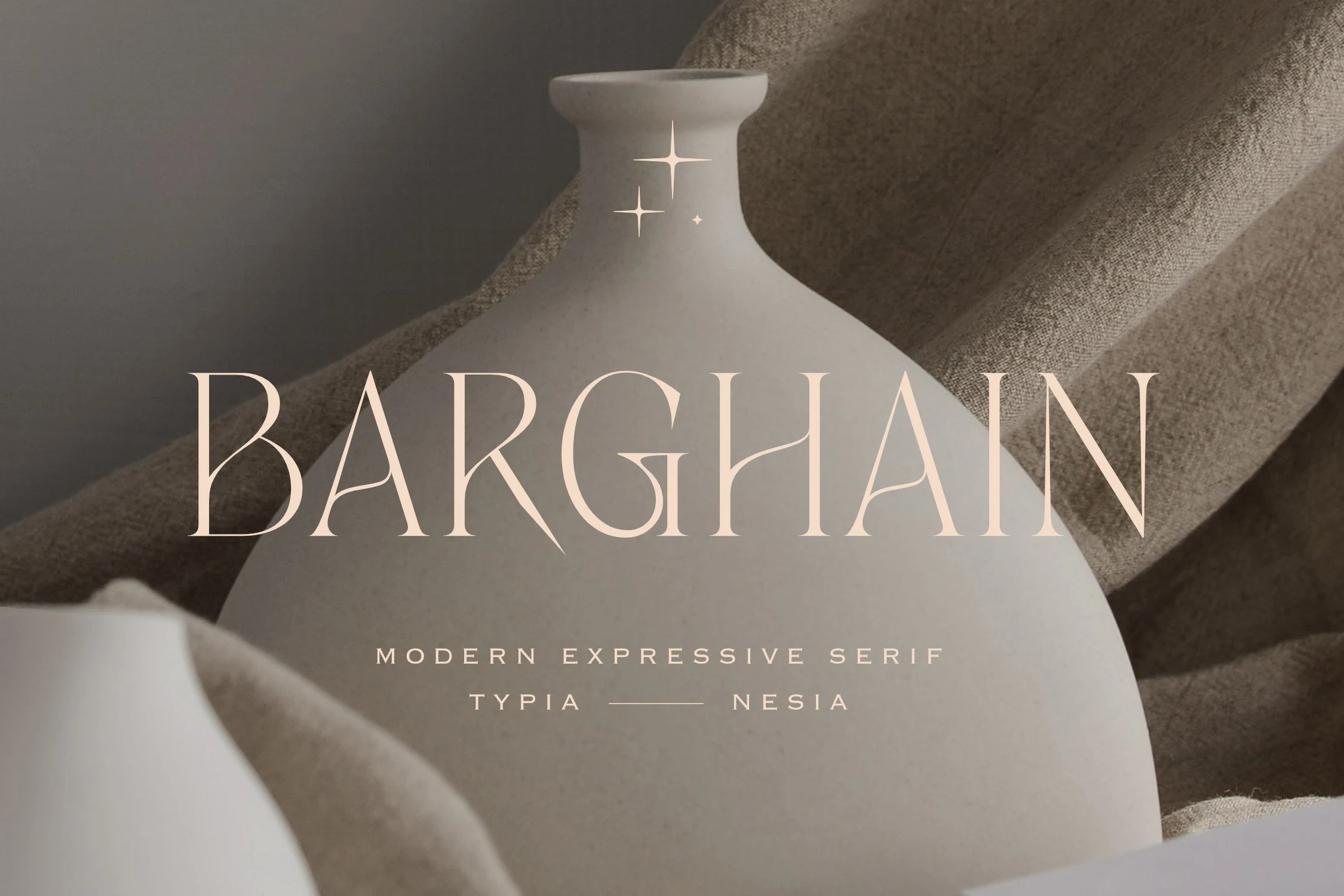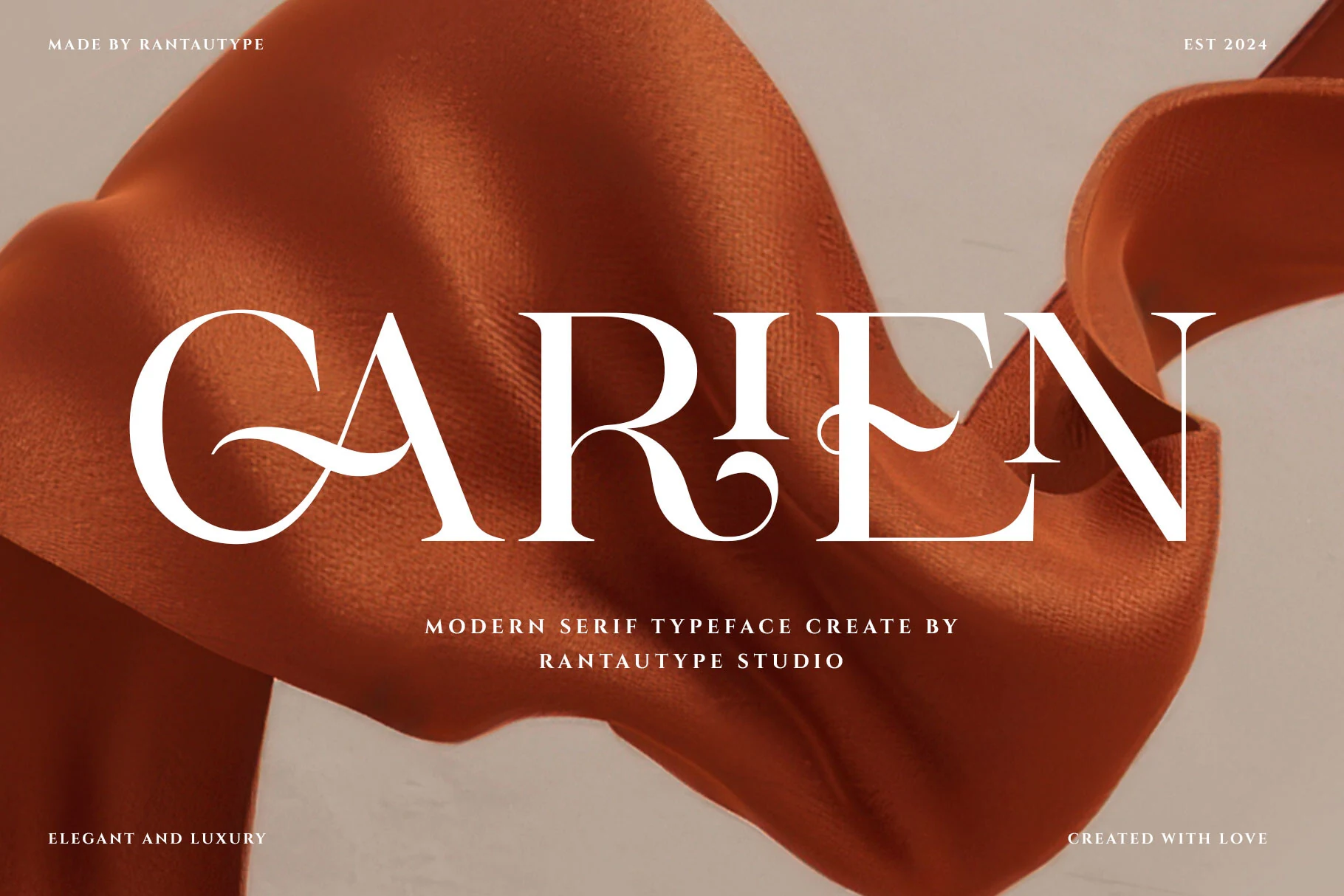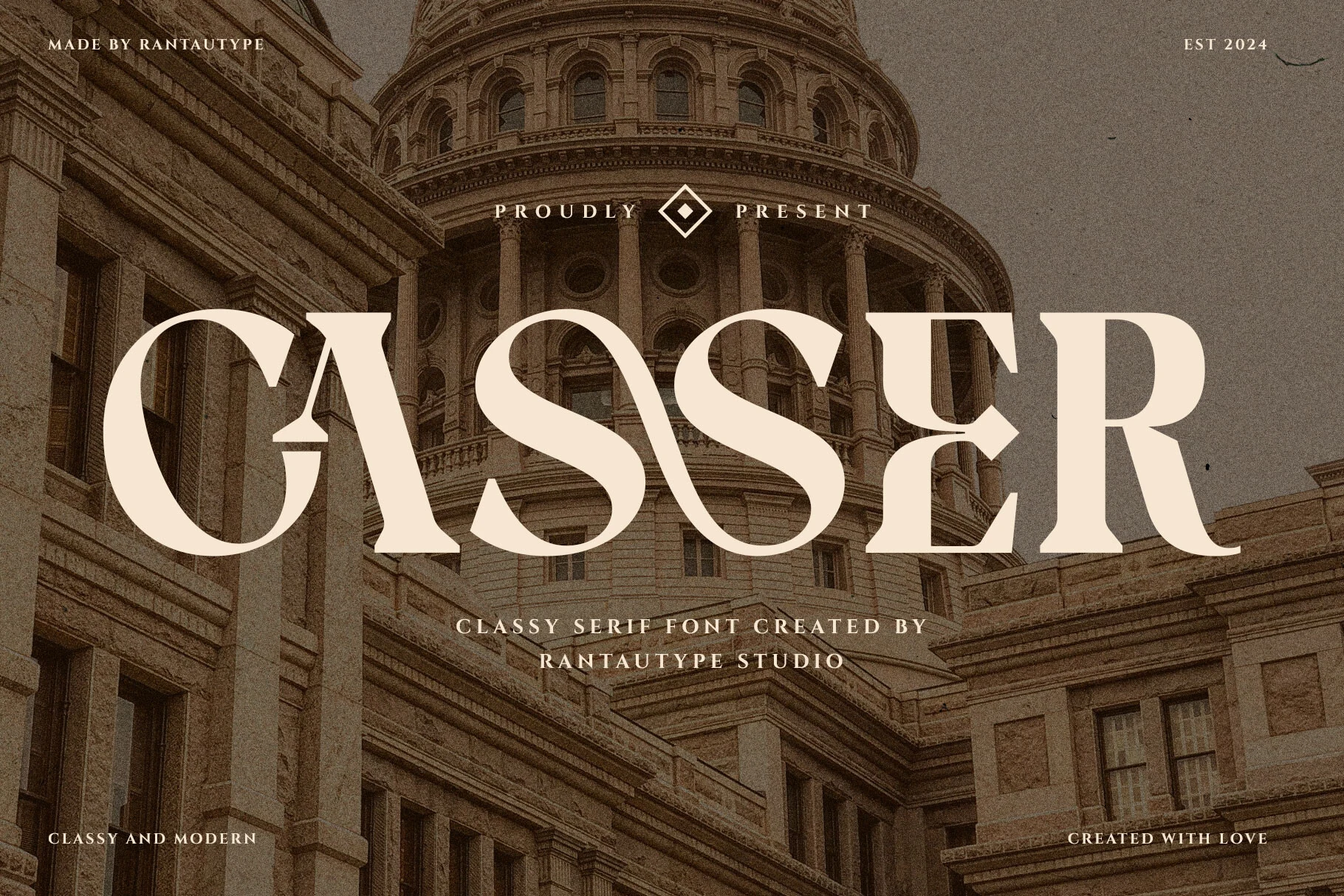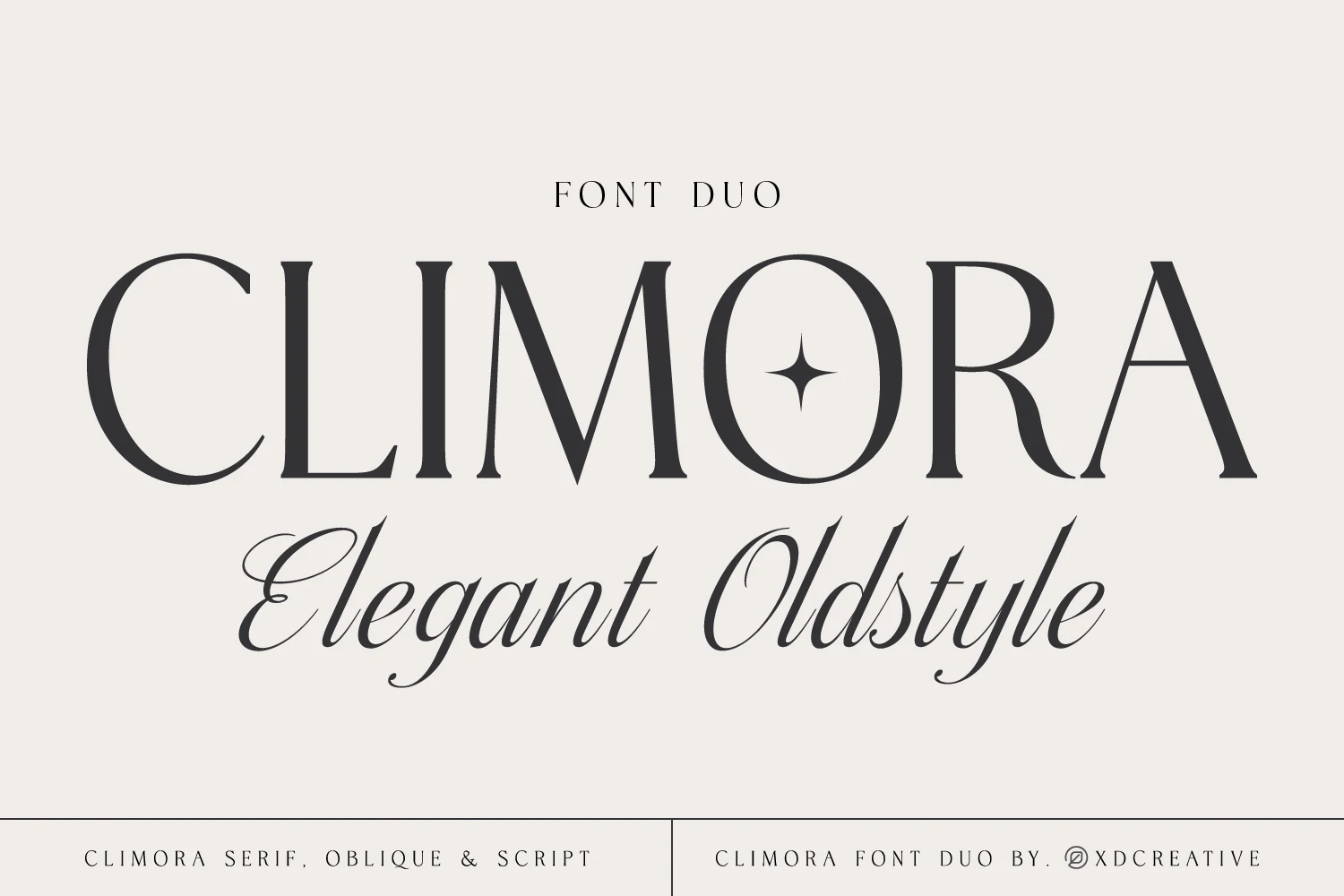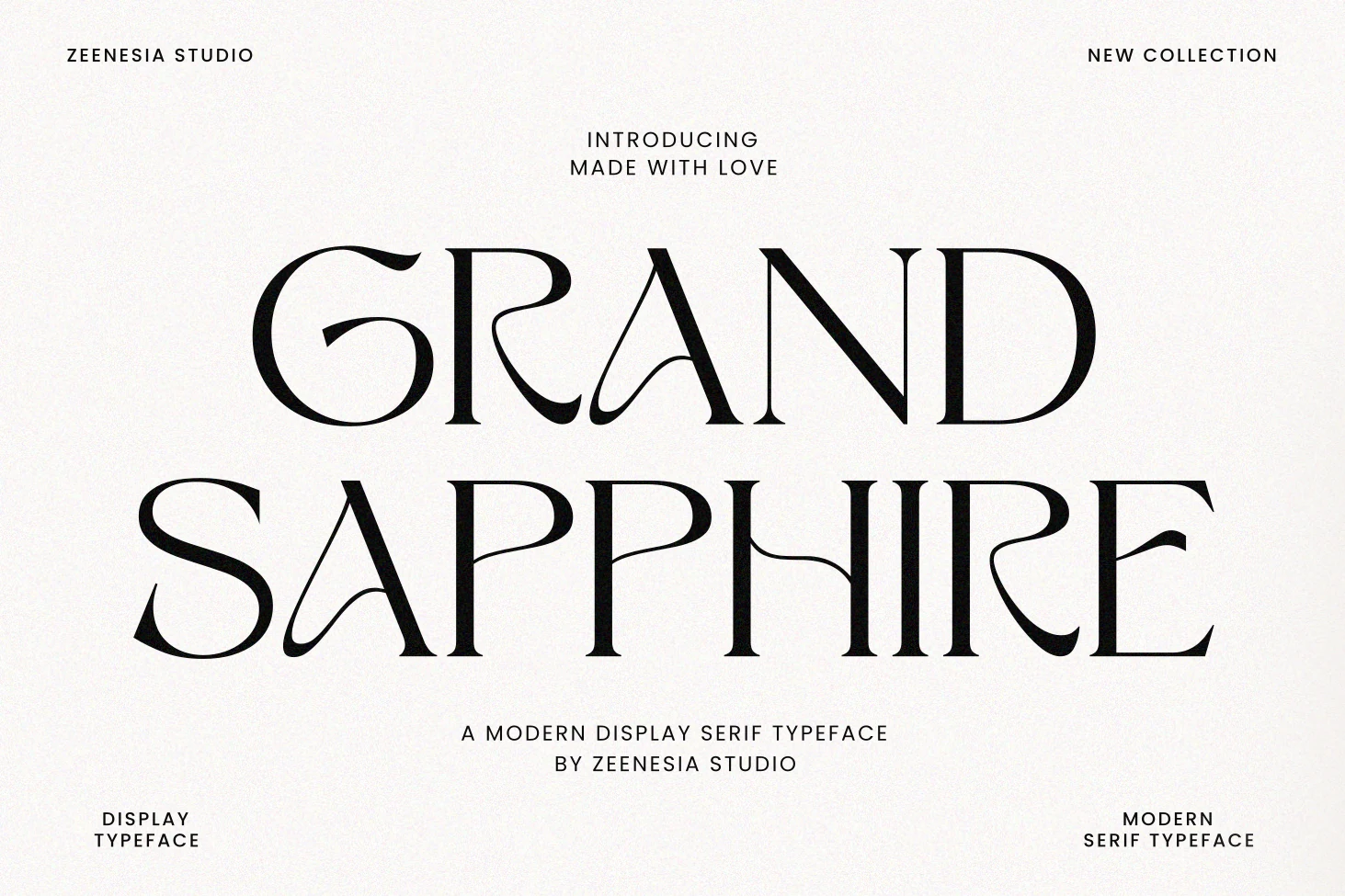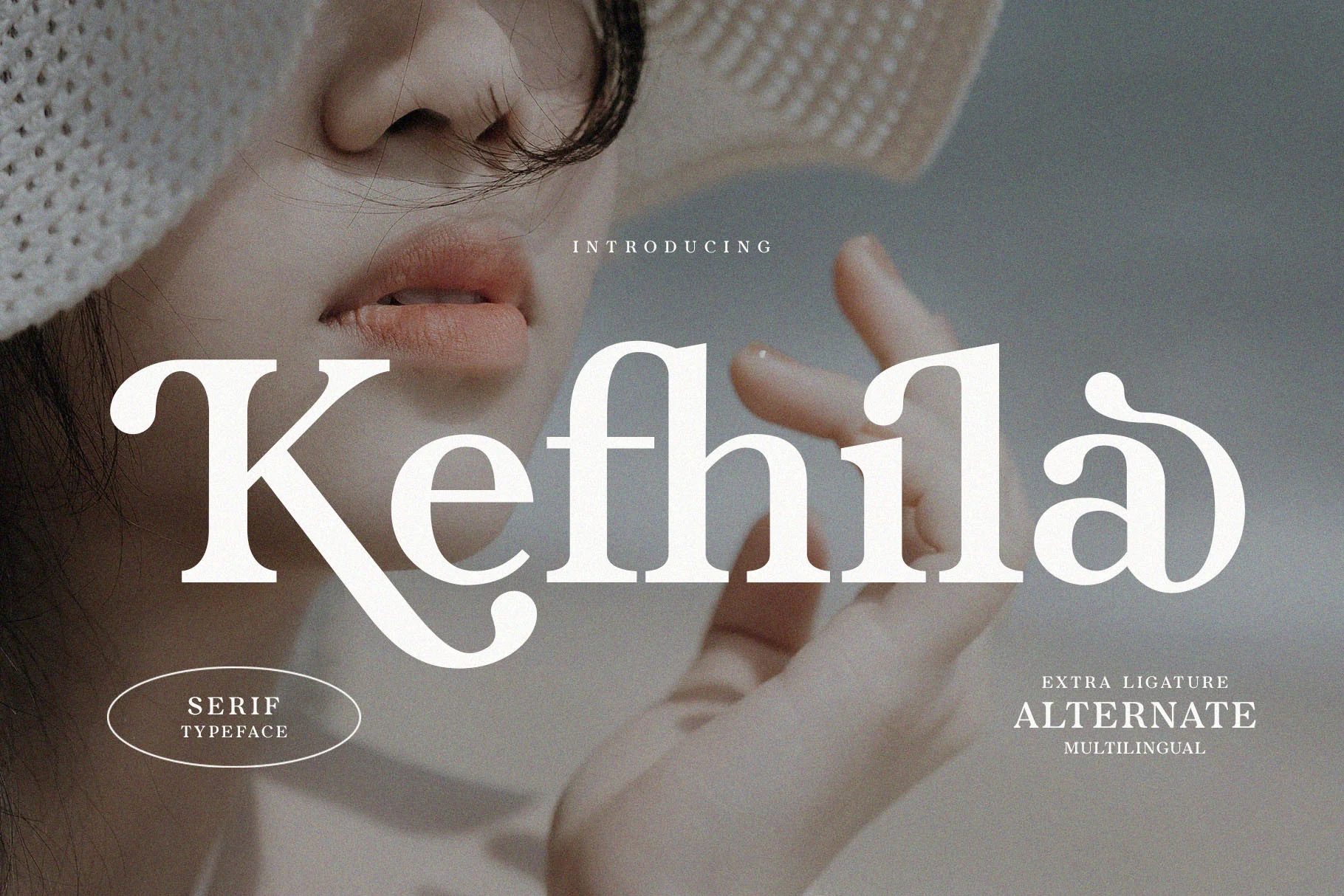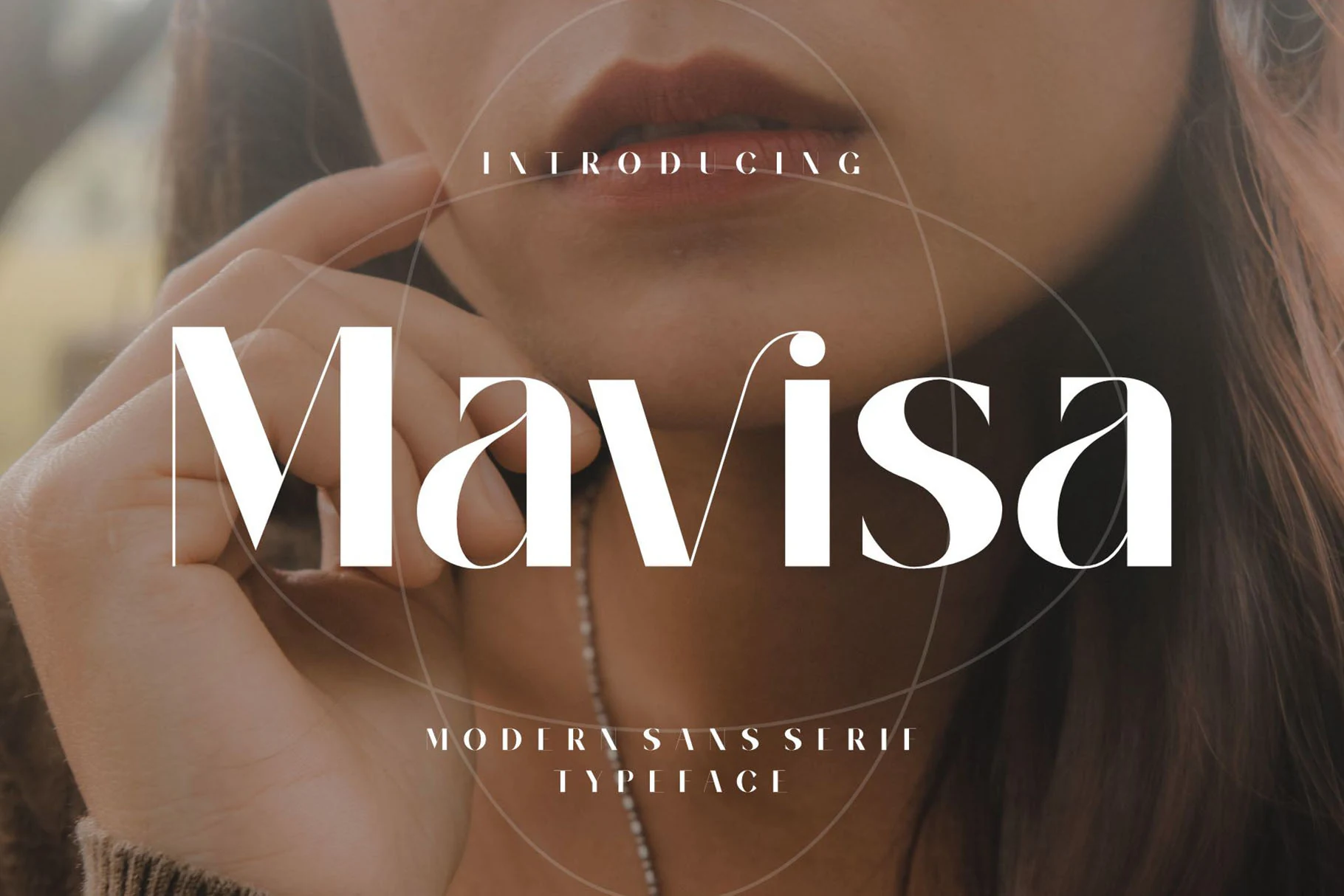
21 Feminine Serif Fonts in 2026 for Stunning Designs
Feminine Serif Fonts give logos, beauty branding, wedding stationery, packaging, and editorial layouts a refined visual voice. This collection is built for designers who need graceful contrast, polished curves, and elegant display type for premium projects.
Elegant & Editorial Feminine Serif Fonts
These polished serif fonts use refined contrast, smooth curves, and balanced spacing for beauty brands, fashion layouts, packaging, and editorial headlines.
Beinora Font
Beinora Font preview in a white high-contrast serif with sweeping curves above a red rose
Beinora has the kind of high contrast that immediately reads polished: thick verticals, hairline joins, and rounded bowls that feel smooth rather than severe. A curled flourish at the top gives the capitals extra personality, while the wide lowercase shapes keep the wordmark elegant and calm.
If you are collecting Feminine Serif Fonts, this one stands out for titles that need softness without losing structure. It performs best at display size, where the thin strokes stay crisp and the contrast can breathe; pair it with simple spacing and let the decorative capital carry the hierarchy.
Selaris Font
Selaris Font preview in warm brown elegant serif lettering with delicate high-contrast strokes
Selaris has a light, polished serif structure with fine hairlines, tall contrast, and graceful curves that keep it looking airy rather than stiff. The standout detail is its decorative teardrop-style flourish, which gives certain letters a romantic accent without overwhelming the overall clean rhythm.
Within Feminine Serif Fonts, this one feels especially suited to minimal layouts where the letterforms can do the work. It handles short titles best: give it moderate tracking and plenty of negative space, then pair it with a quiet sans serif so the refined terminals and sculpted curves stay crisp.
Milarose Regular Font
Milarose Regular Font preview in cream high-contrast serif lettering on a dark background
Milarose has a poised display rhythm built from crisp contrast, rounded bowls, and tapered serifs that feel light at the edges rather than rigid. The capitals look sculpted and spacious, while the curved cross-stroke and soft joins keep the face graceful instead of overly formal.
If you want Feminine Serif Fonts with a cleaner editorial finish, this one shines in large titles and refined branding where its thin details stay visible. Give the letterforms generous scale and moderate spacing; the wide proportions create a calm hierarchy, and simpler supporting text helps the contrast remain the focal point.
Kirena Font
Kirena Font preview in warm brown classic serif lettering with tall clean capitals on a cream background
Kirena keeps its elegance restrained, with tall capitals, gently tapered strokes, and smooth curves that make the word shapes feel balanced rather than ornate. The serifs are fine and clean, and the spacing reads open, giving the face a calm, classic presence well suited to polished display work.
Within Feminine Serif Fonts, Kirena works best when you let its vertical rhythm stay visible in headlines, packaging, or refined identity text. Pair it with a quiet sans and avoid crowding the tracking; the simple construction is what gives the letters their expensive, composed look.
Casser Font
Casser Font preview in cream display serif lettering with high-contrast curves over an architectural background
Casser has a confident display presence built on high contrast, sweeping curves, and sharp serif endings. The broad S shapes, sculpted C, and refined leg on the R give it a polished rhythm that feels classic at first glance, yet still clean and current in the overall silhouette.
As Feminine Serif Fonts go, this one is strongest when used big enough for the thin details and elegant curves to stay visible. It suits short headlines, identity work, and refined covers especially well; keep supporting text simple so the wide letterforms and graceful contrast set the hierarchy.
Serefine Font
Serefine Font preview in white high-contrast serif lettering with italic curves on a bold red background
Serefine has a crisp high-contrast build with smooth bowls, fine hairlines, and an italic slant that gives the wordmark a polished sweep. The generous serif terminals and rounded counters keep it elegant, while the dramatic contrast adds enough edge to make short titles feel fashion-led rather than overly delicate.
Among Feminine Serif Fonts, this one works especially well when you want softness with a stronger editorial silhouette. Use it at display size so the thin strokes stay sharp, and let the italic forms lead the hierarchy in names or quotes while simpler supporting text keeps the composition balanced.
Conclusion
Choose elegant editorial serifs for polished brand systems, ornate romantic styles for invitations and beauty work, and tall statement serifs when the layout needs stronger logo or headline impact.